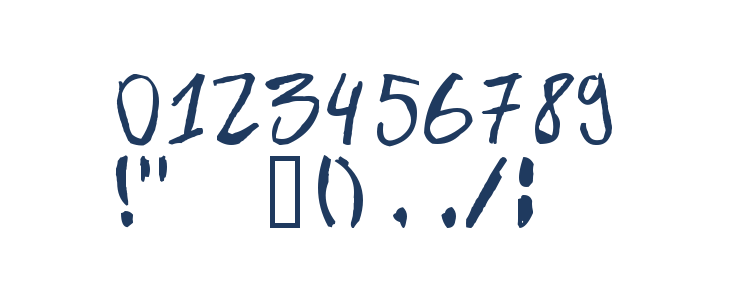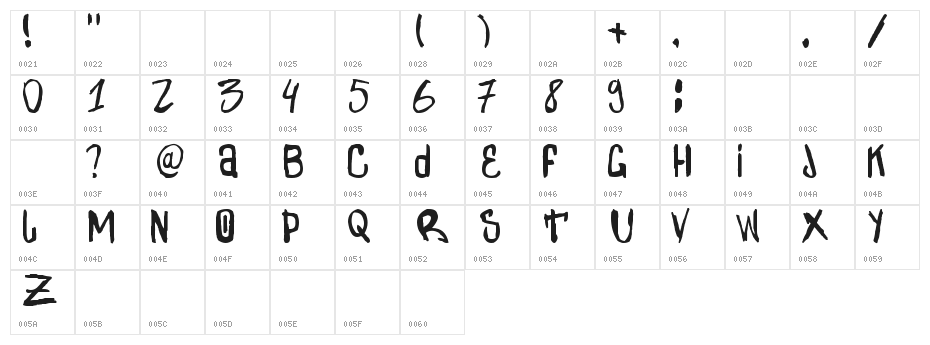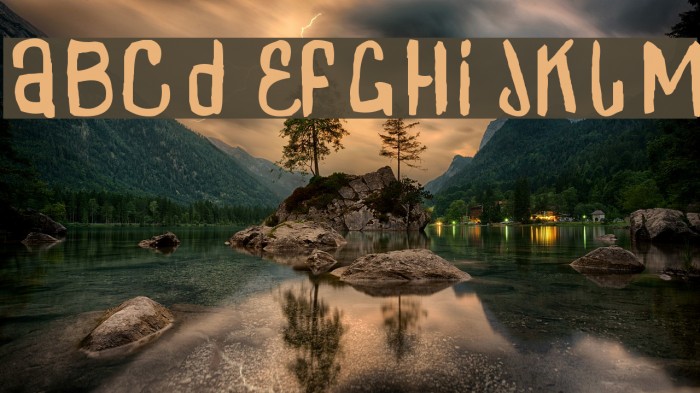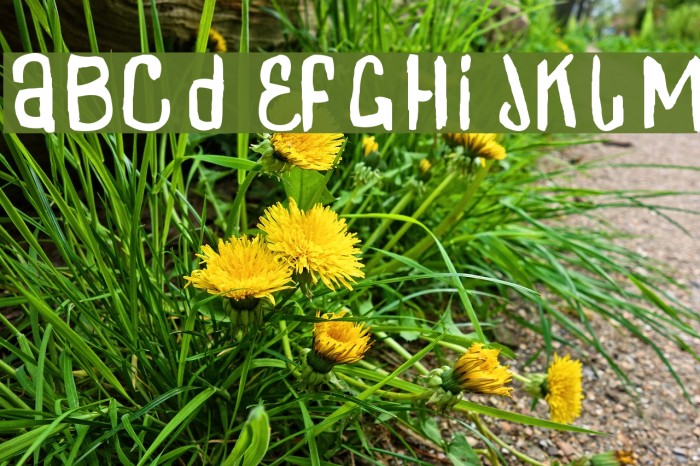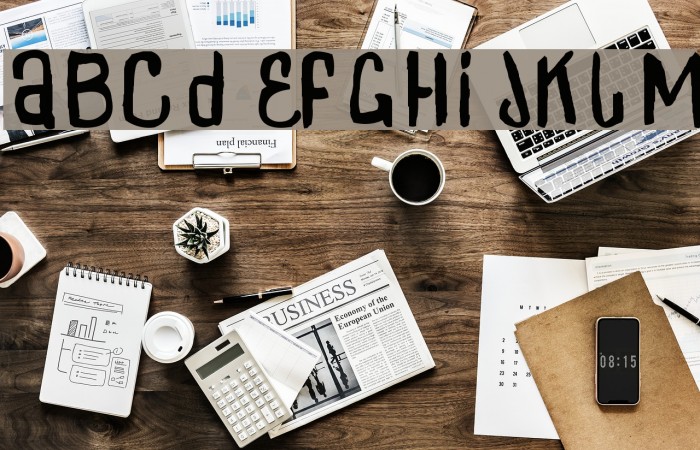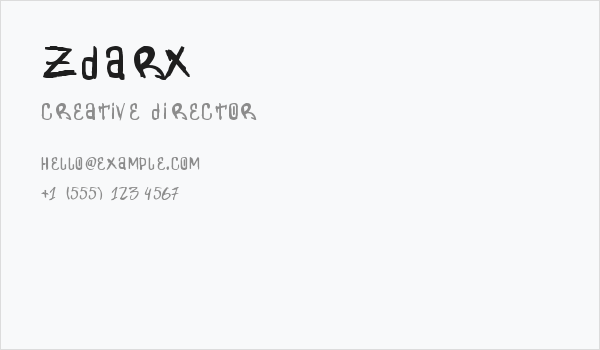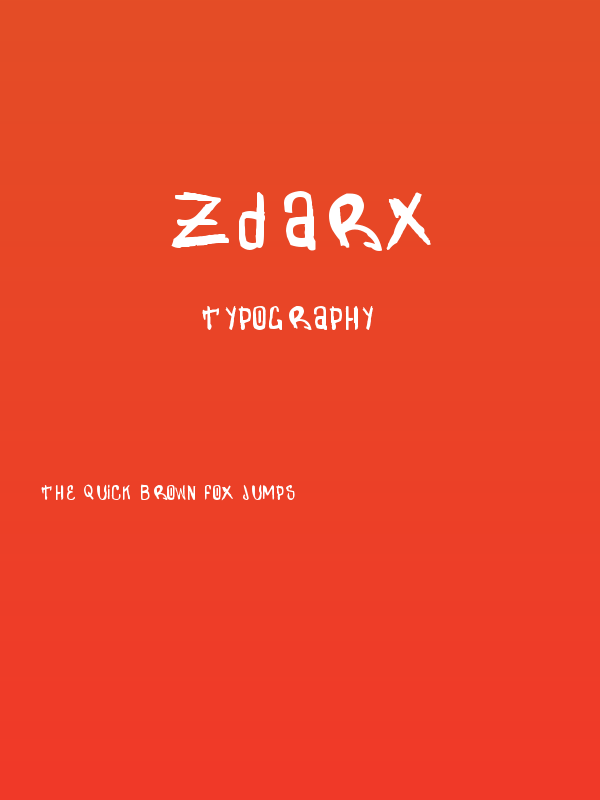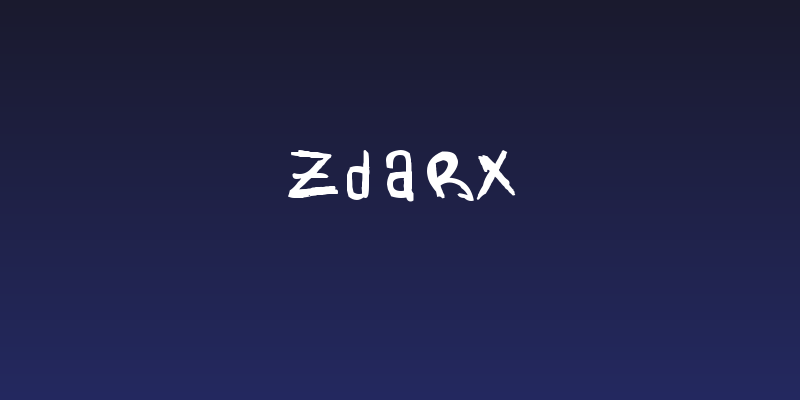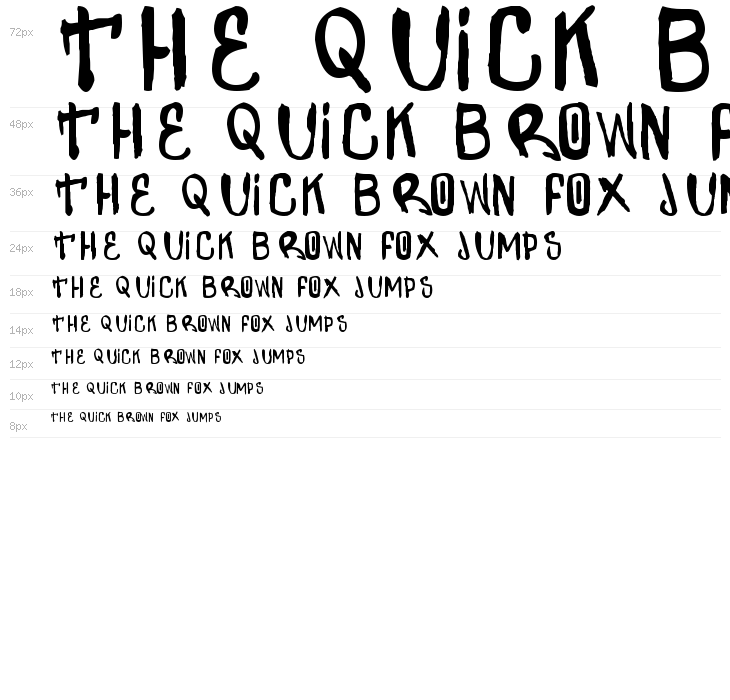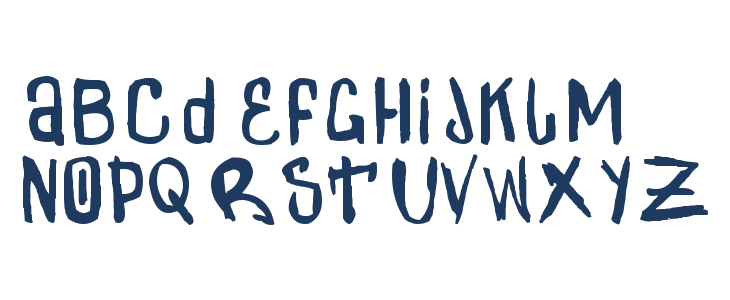
Zdarx Font
Zdarx Description
This font features a bold, expressive style with a hand-drawn appearance. The characters are slightly irregular, giving it a playful and artistic feel. The uppercase letters are prominent and dynamic, while the lowercase letters maintain a consistent flow. Numbers and special characters follow the same energetic style, making them stand out. The strokes are thick and varied, contributing to a high contrast look. This font is ideal for projects that require a creative and informal touch, such as posters, invitations, or branding materials that aim to capture attention and convey a sense of fun.
Proposed ProjectsIdeal for posters, invitations, branding, and creative projects needing a lively touch.